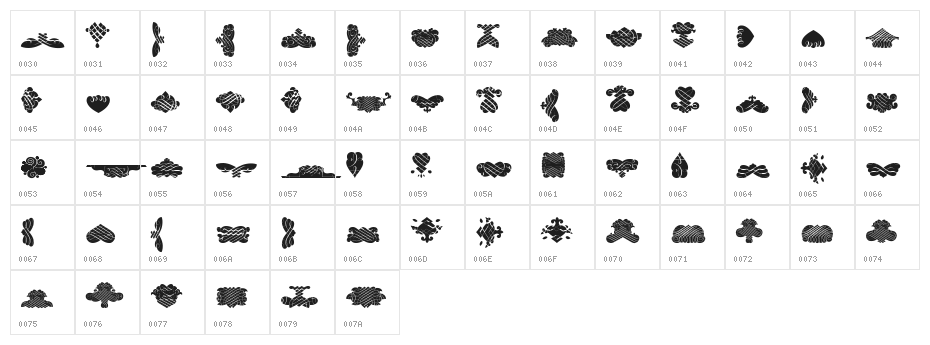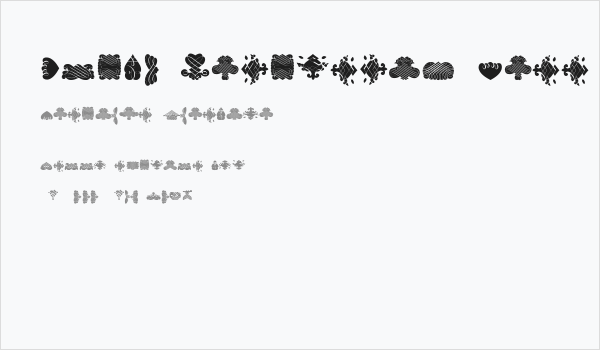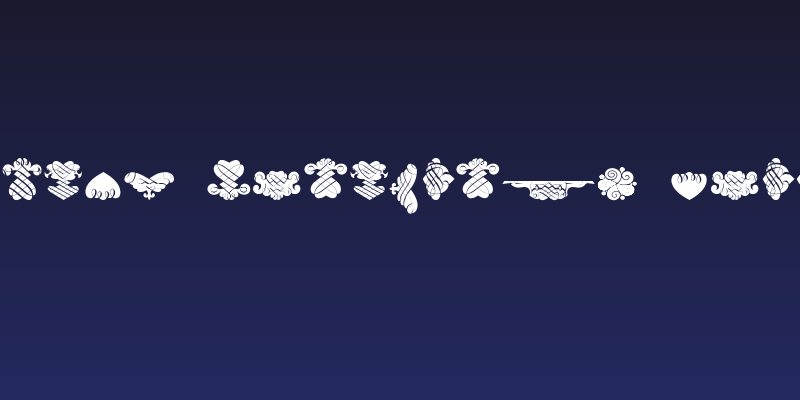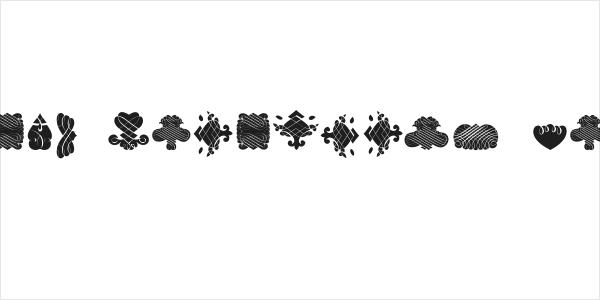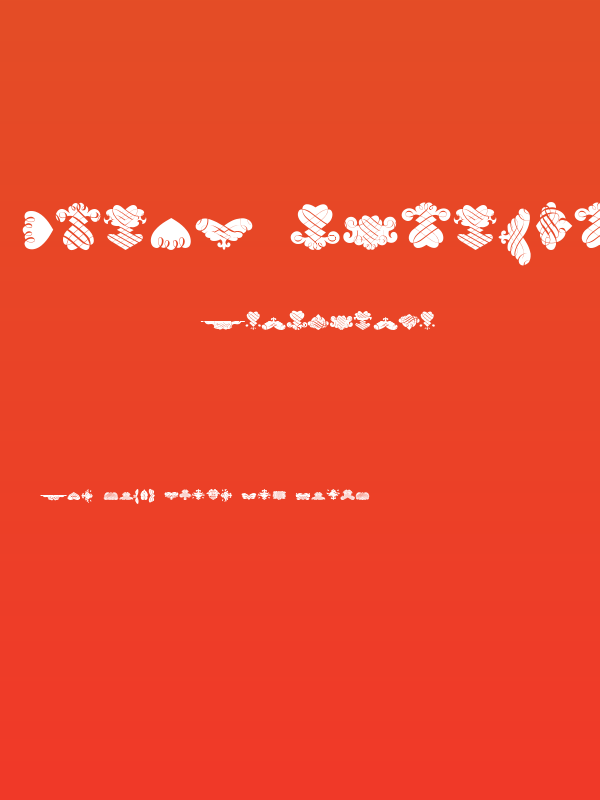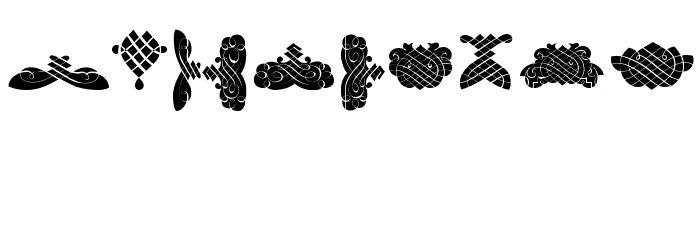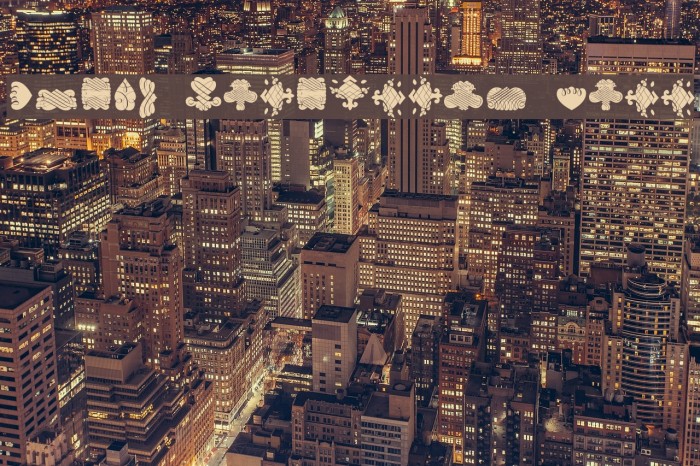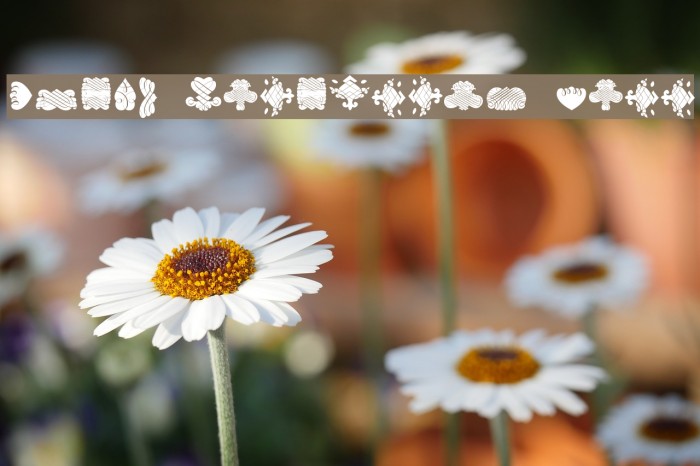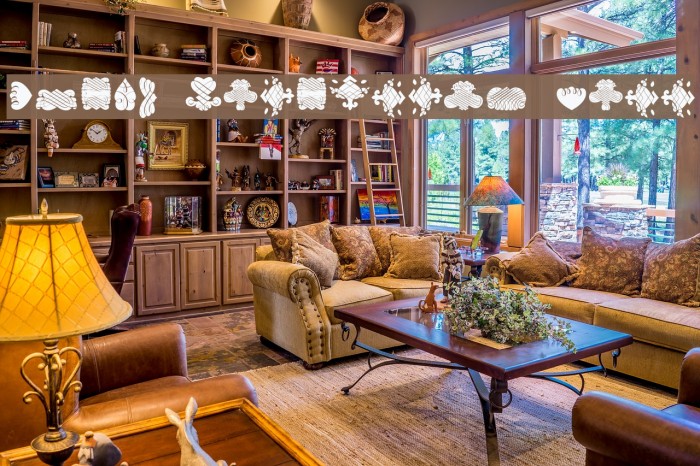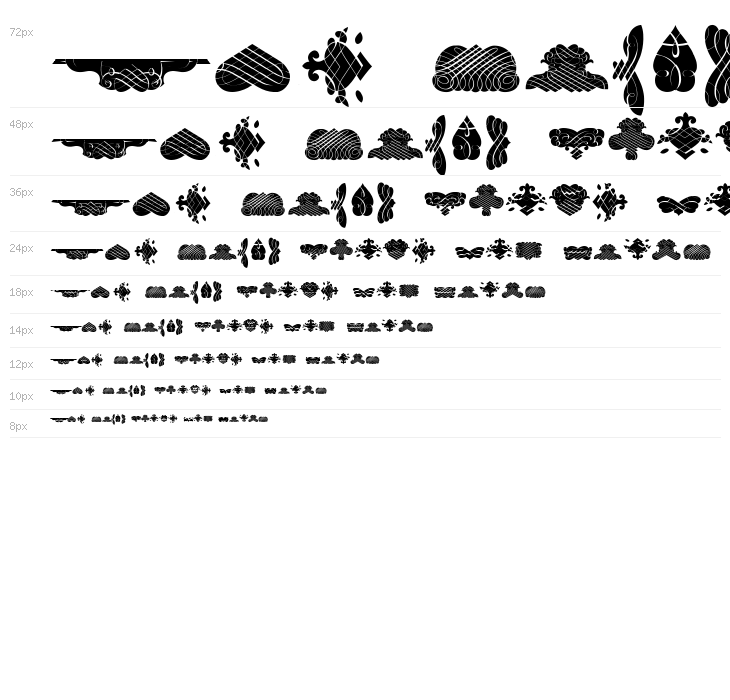
Black Ornaments Free Font
Black Ornaments Free Description
A collection of intricate, ornamental glyphs featuring swirling, floral, and geometric motifs in solid black with fine line detailing. Each character is a unique decorative element rather than a standard alphanumeric glyph.
| Overall Style | Vintage, Decorative |
| Use Case | Ornamental accents, embellishments, graphic design elements. |
| Proposed Projects | Invitations, certificates, borders, decorative dividers, vintage packaging, book covers. |